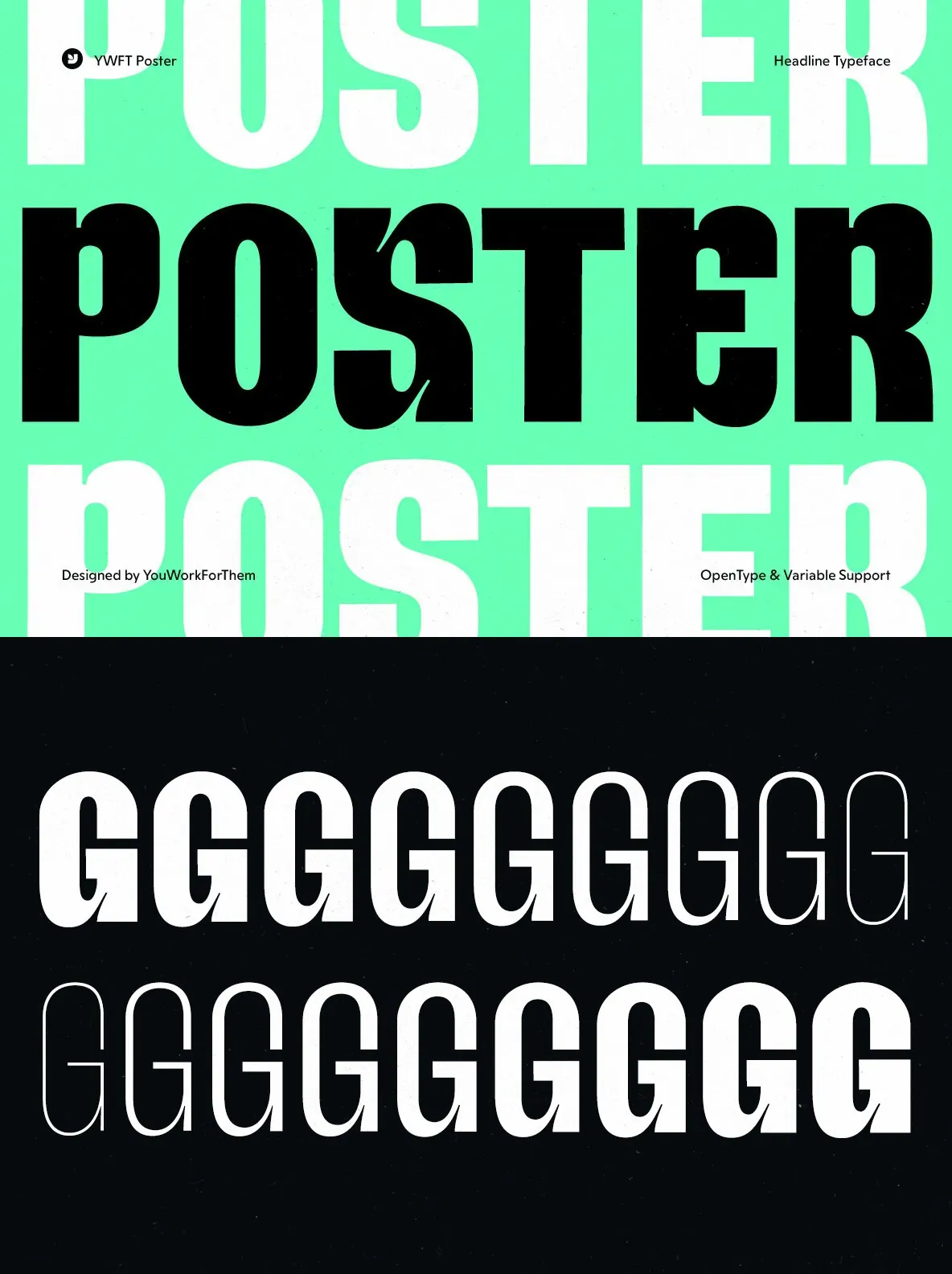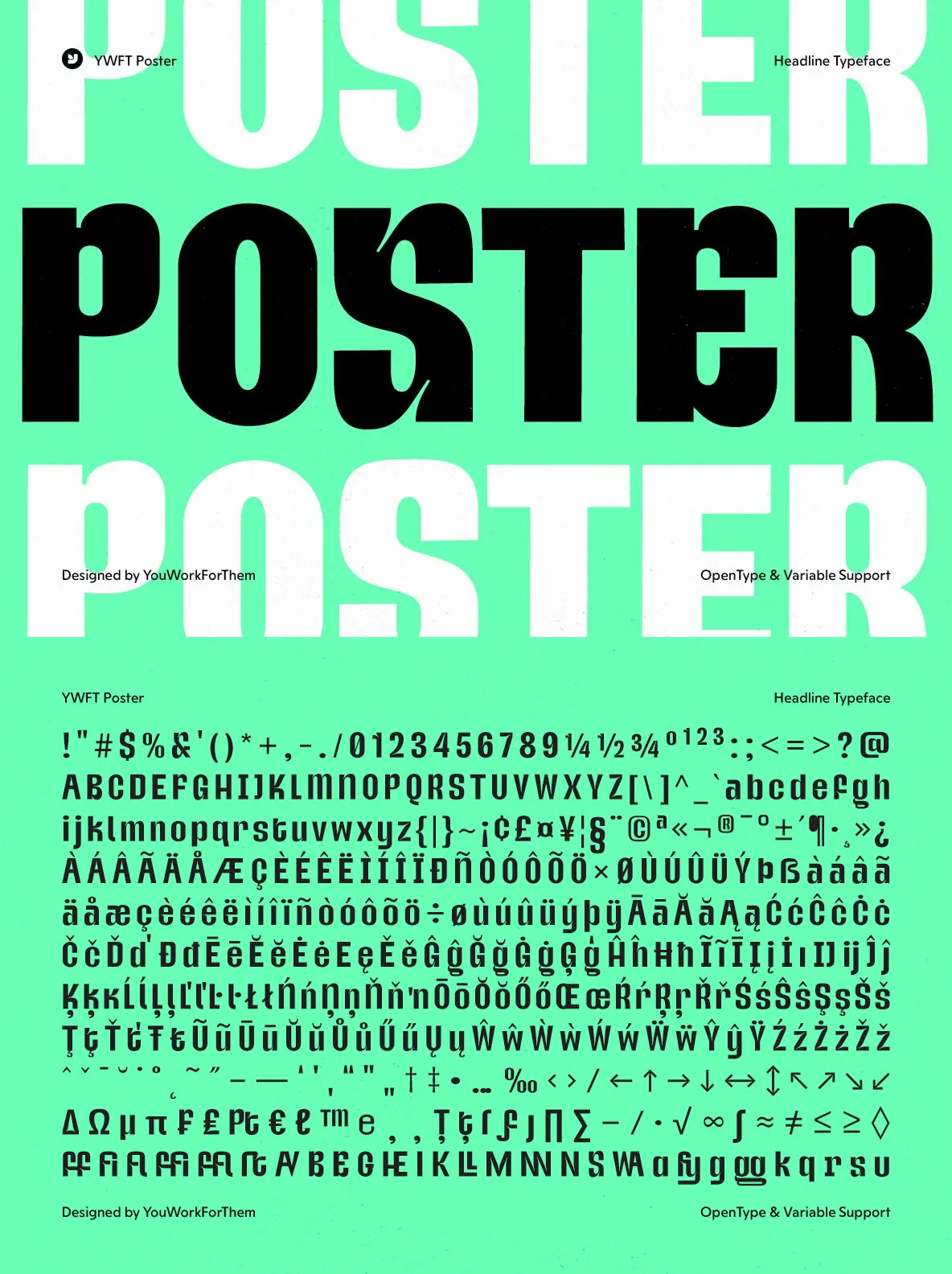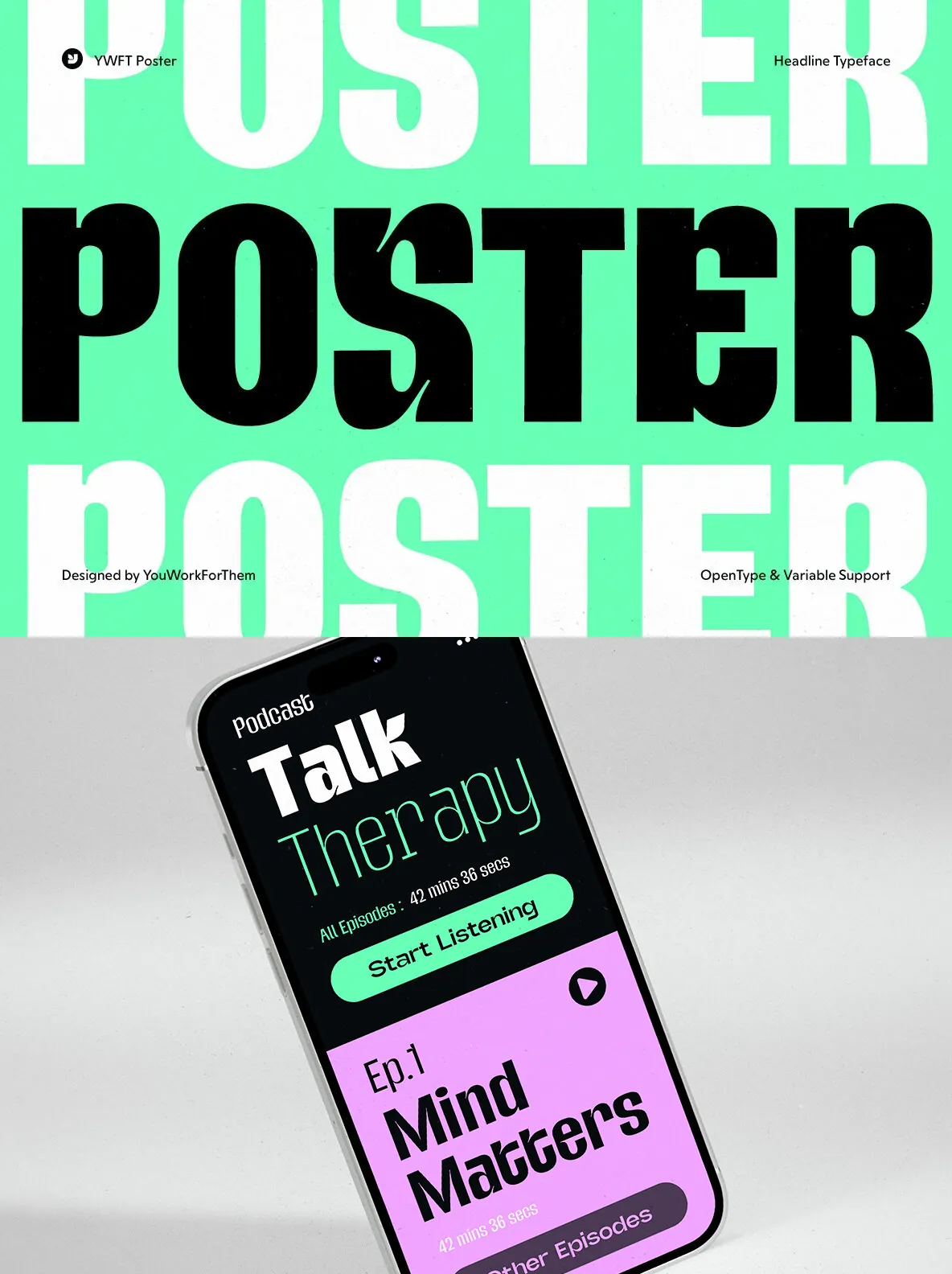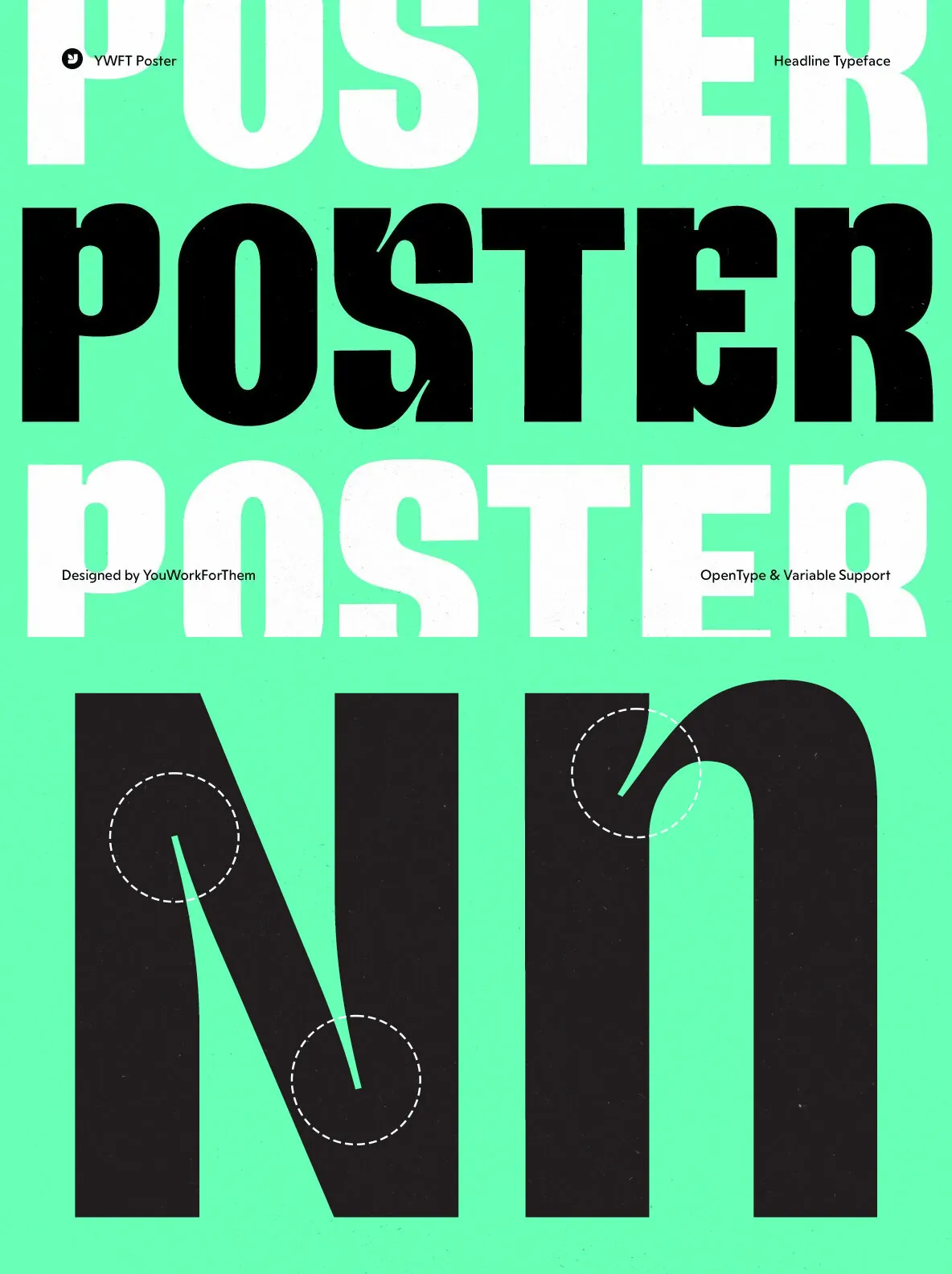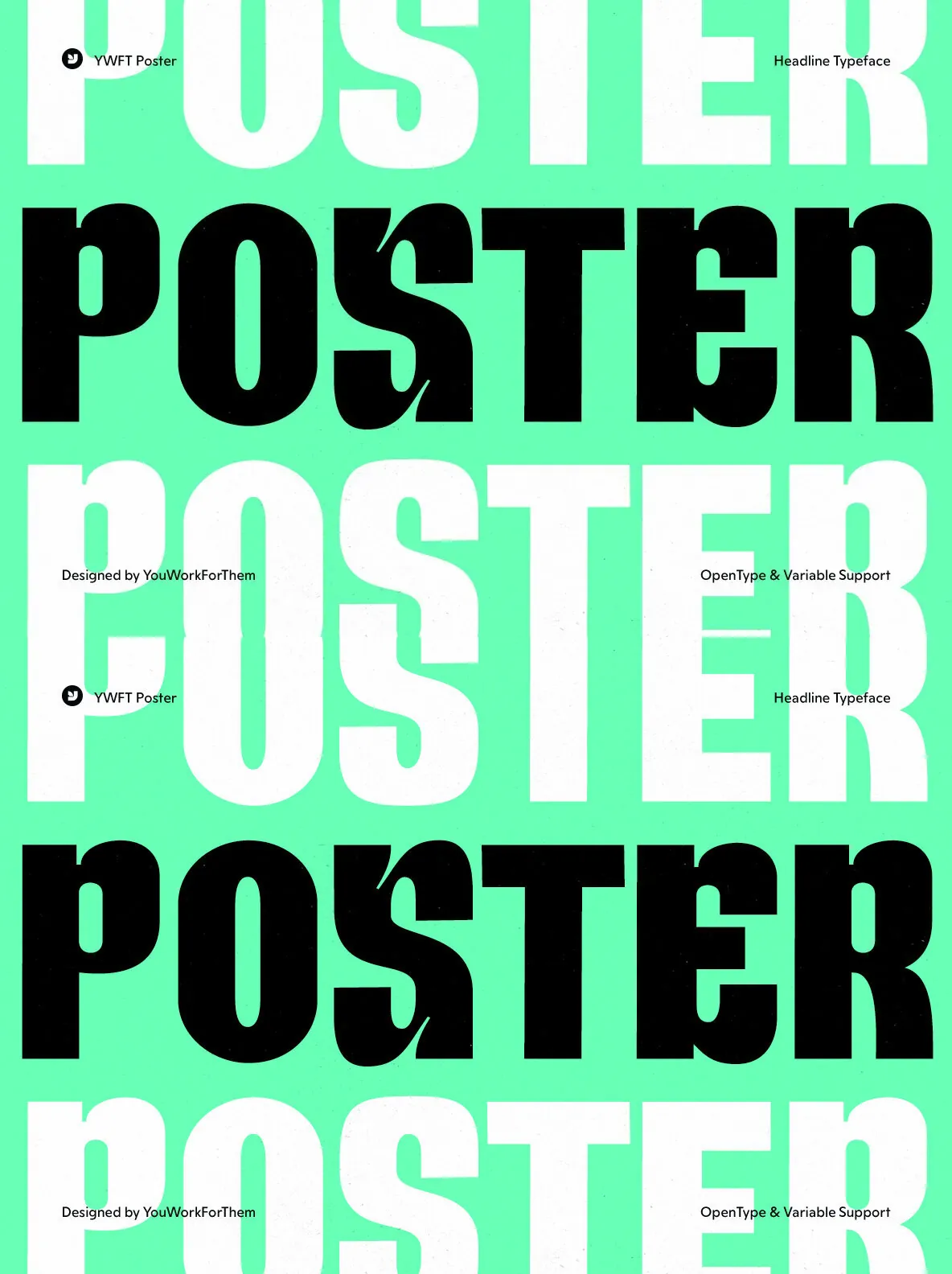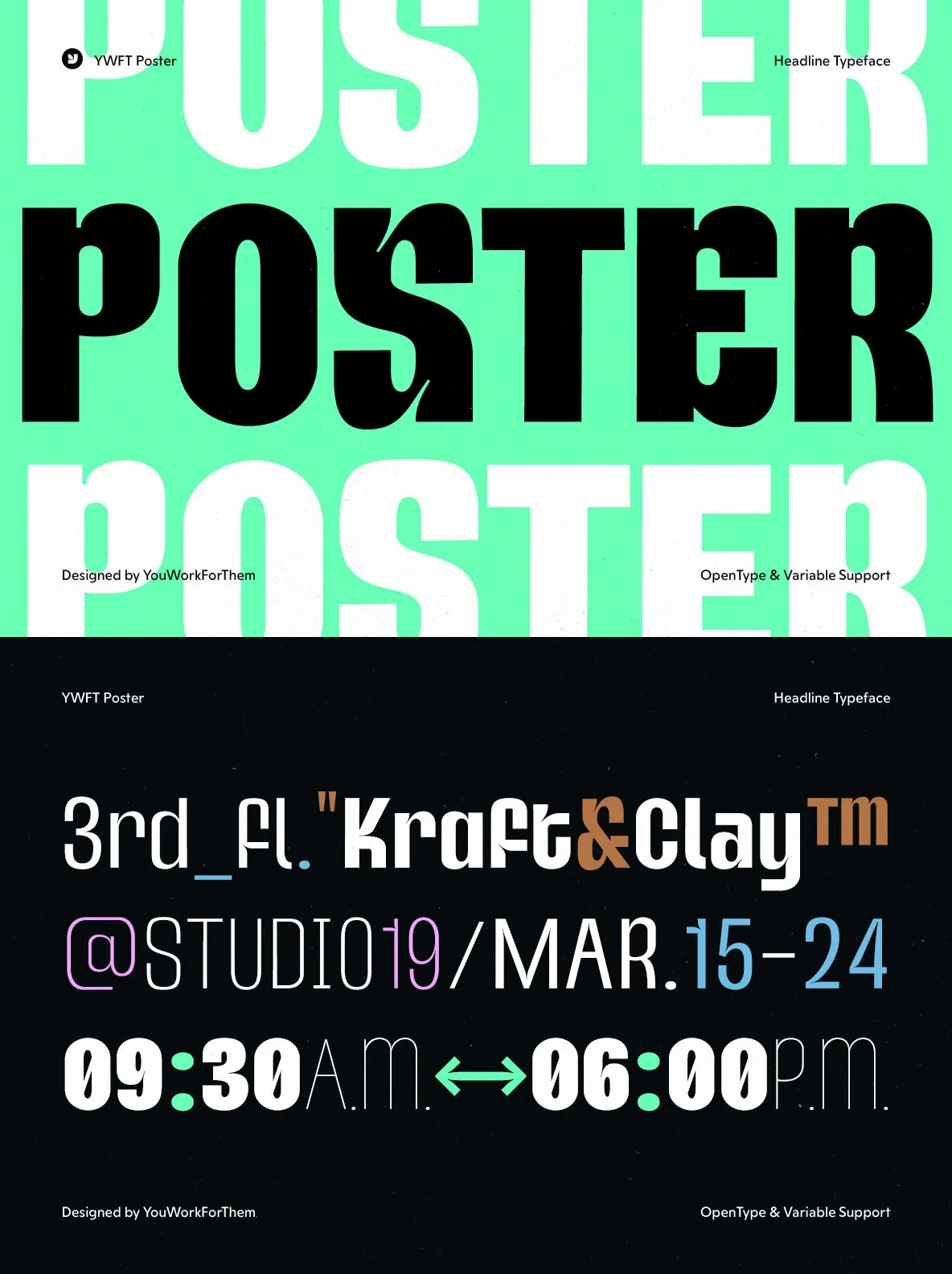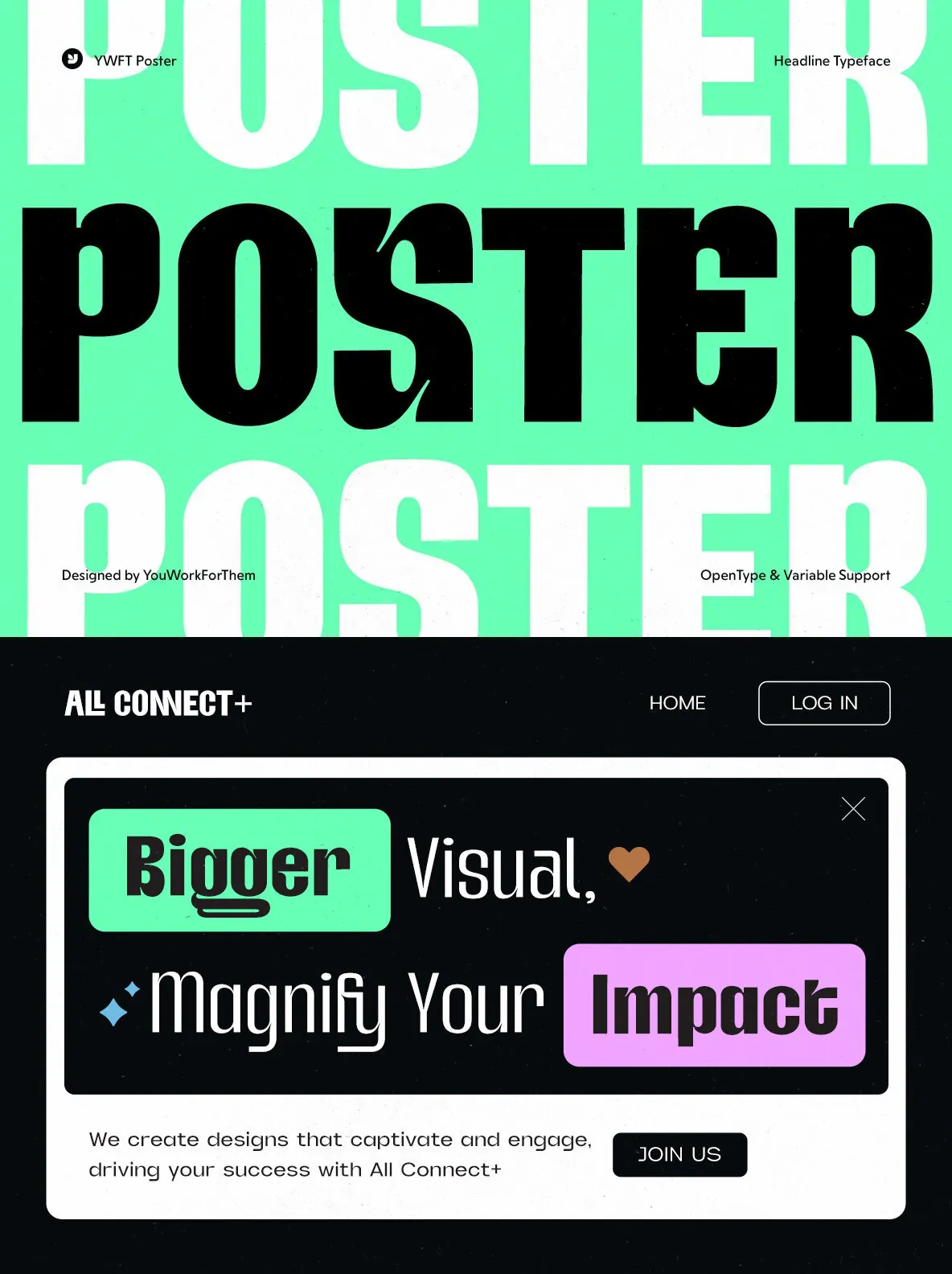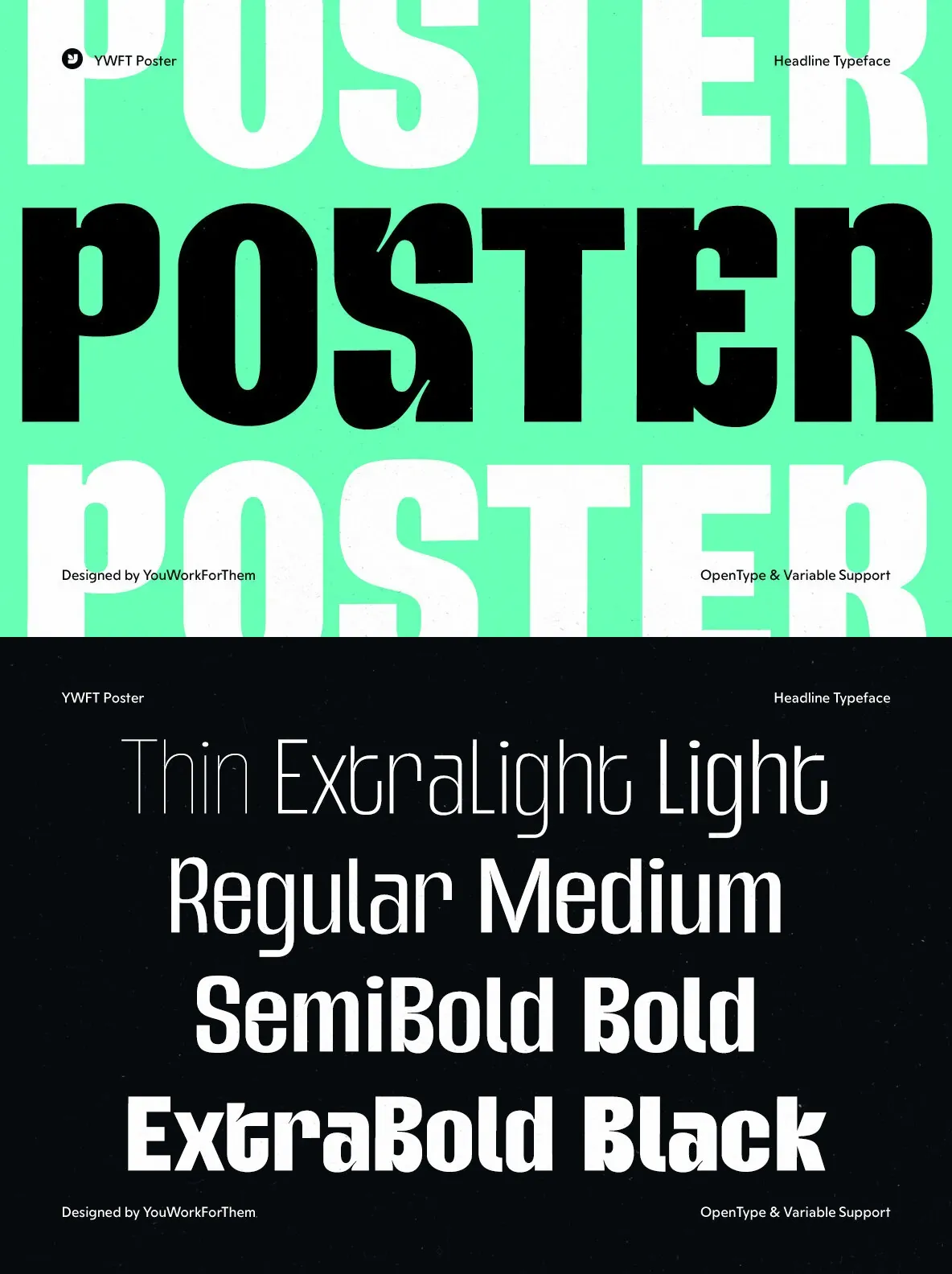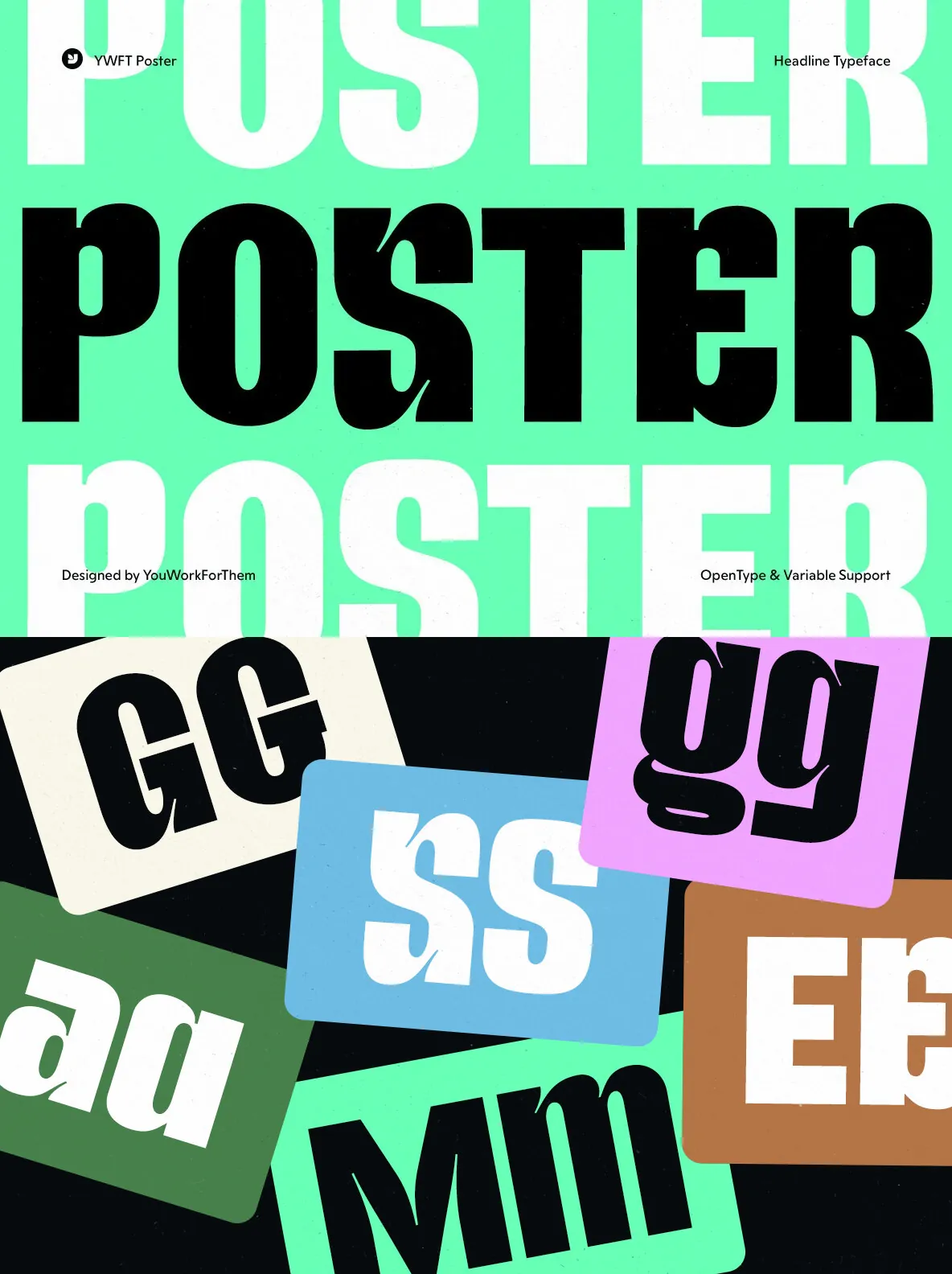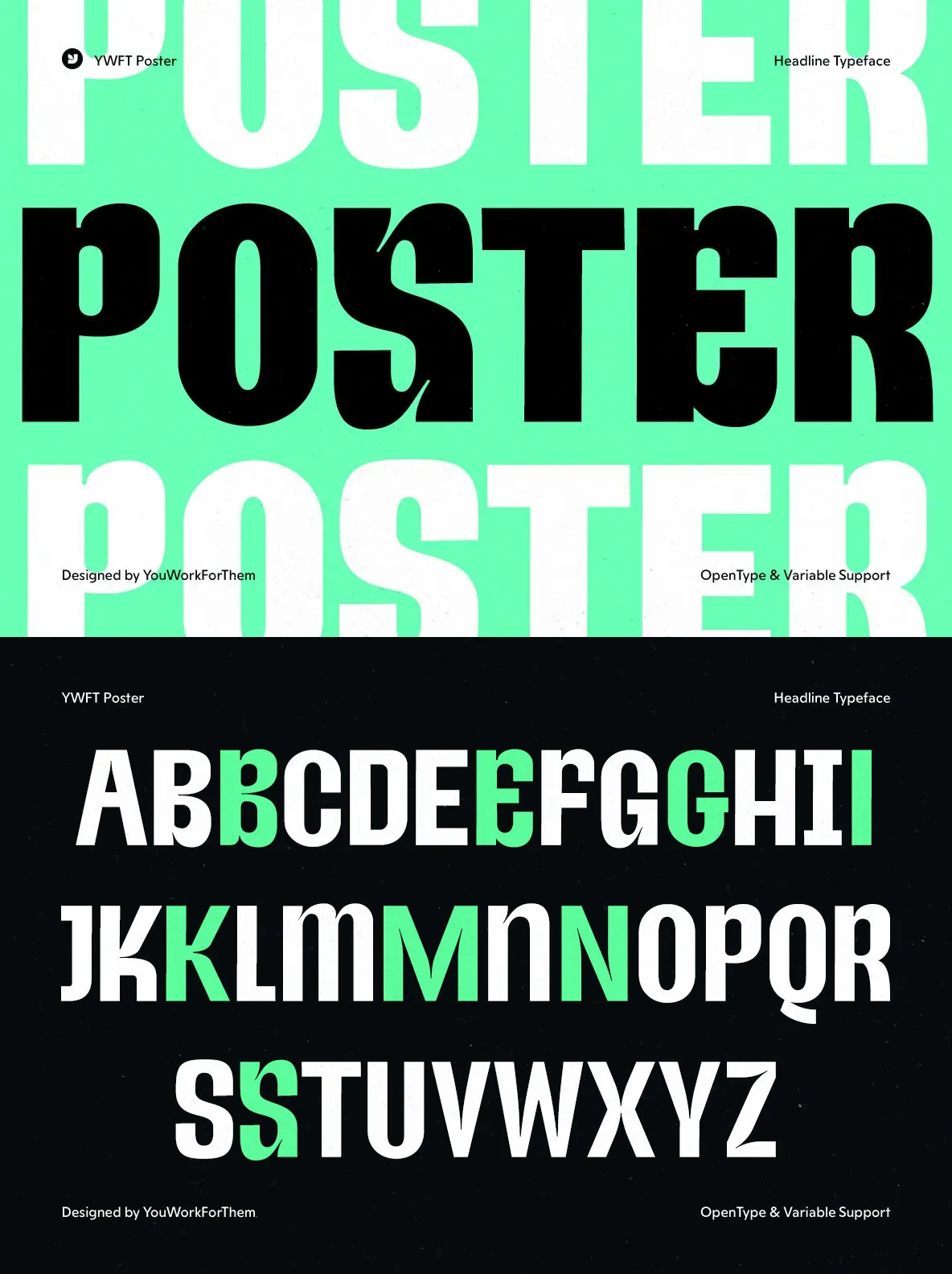
YWFT Poster — Headlines That Hold the Frame
Introducing YWFT Poster, a robust and versatile headline font made for impact across modern digital platforms. With 416 glyphs and nine styles ranging from Thin to Black, it gives designers a dependable range for bold typographic hierarchy and attention-grabbing display type.
YWFT Poster fits right into entertainment and web-first design. Use it for movie titles on streaming platforms like Netflix, Hulu, and Spotify, or for strong headlines on fast-moving websites. From the light touch of Extra Light to the authority of Black, its weight range supports promotional materials for movies and series, and it reads cleanly in H1, H2, and H3 titles where clarity matters.